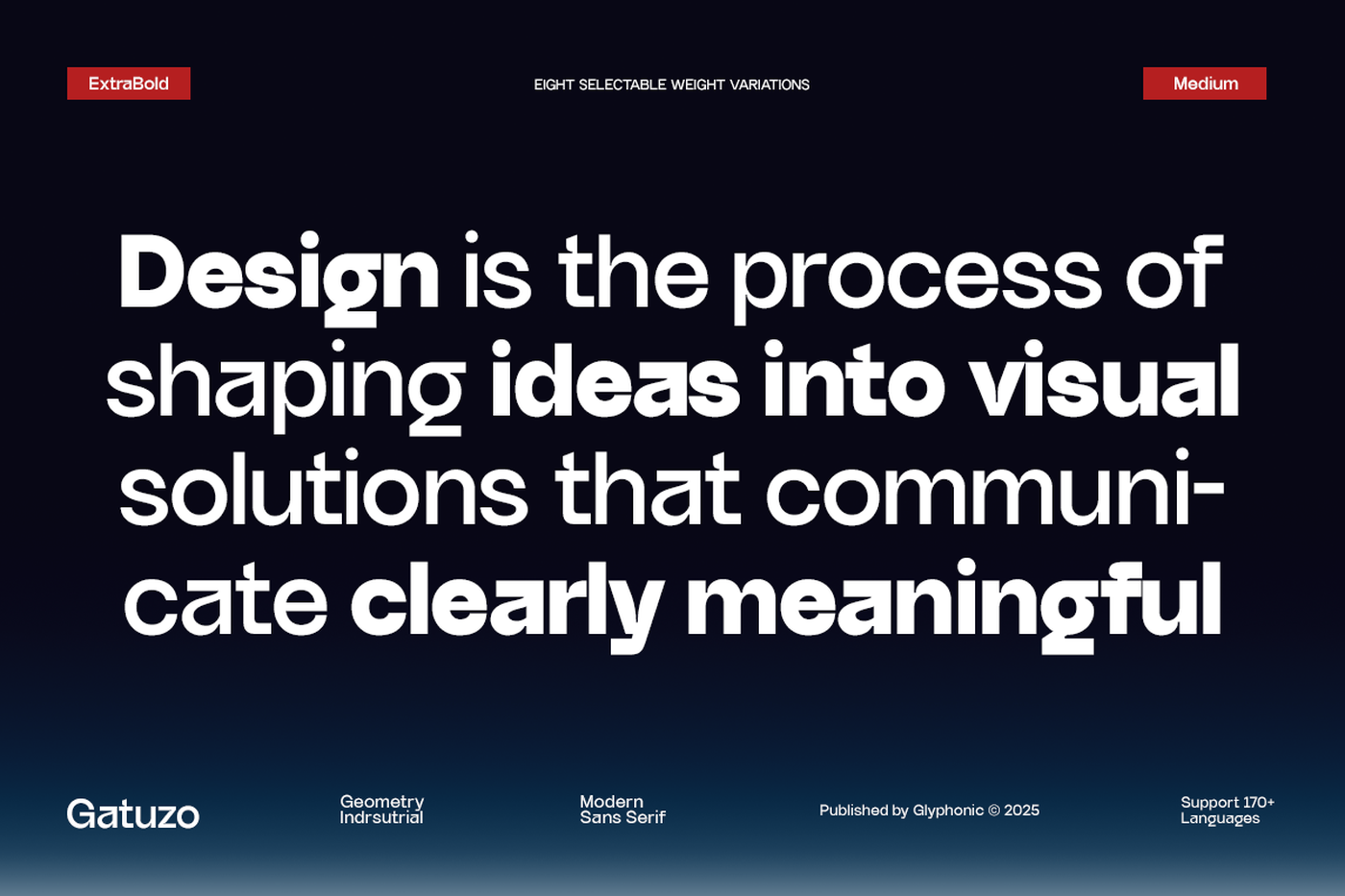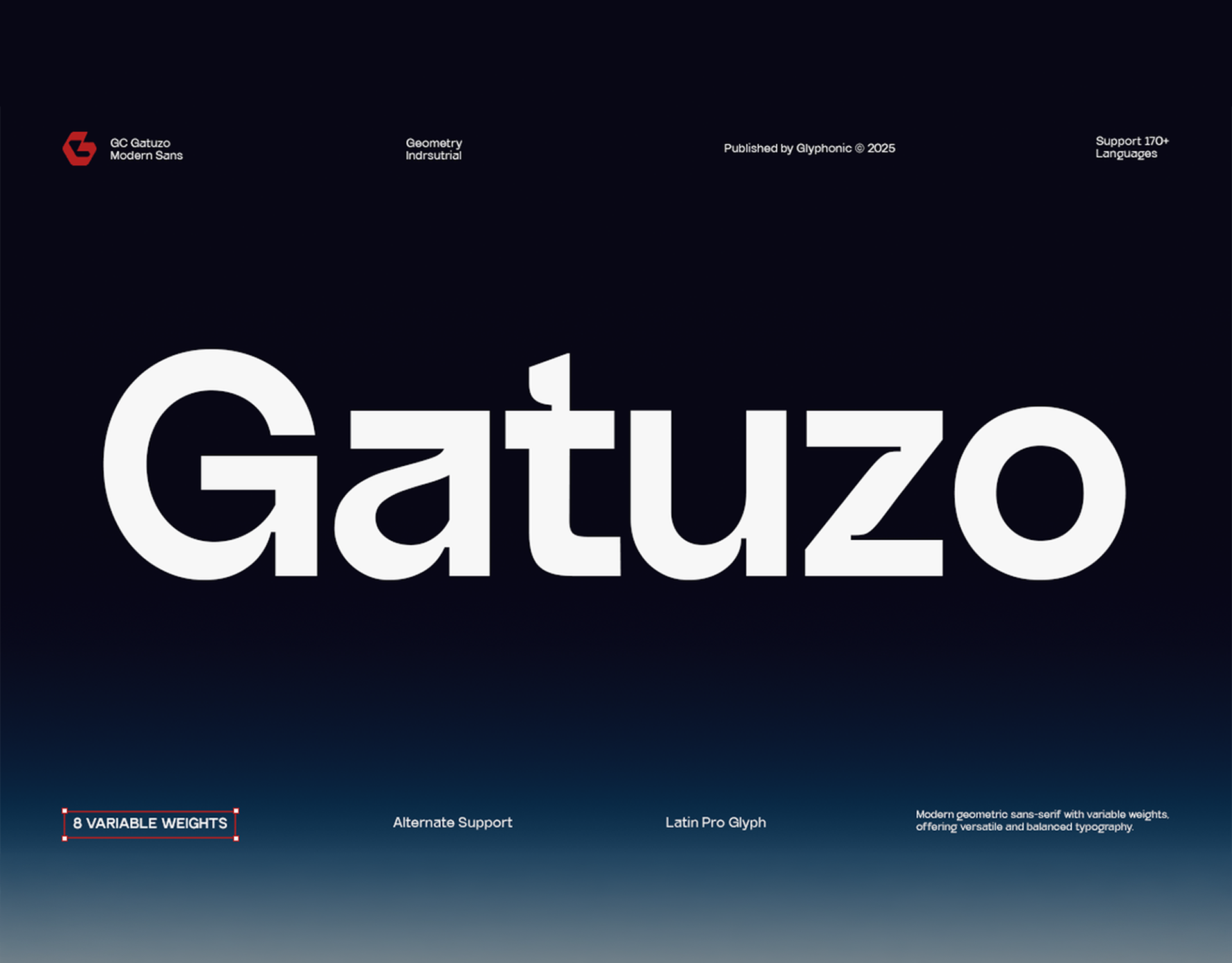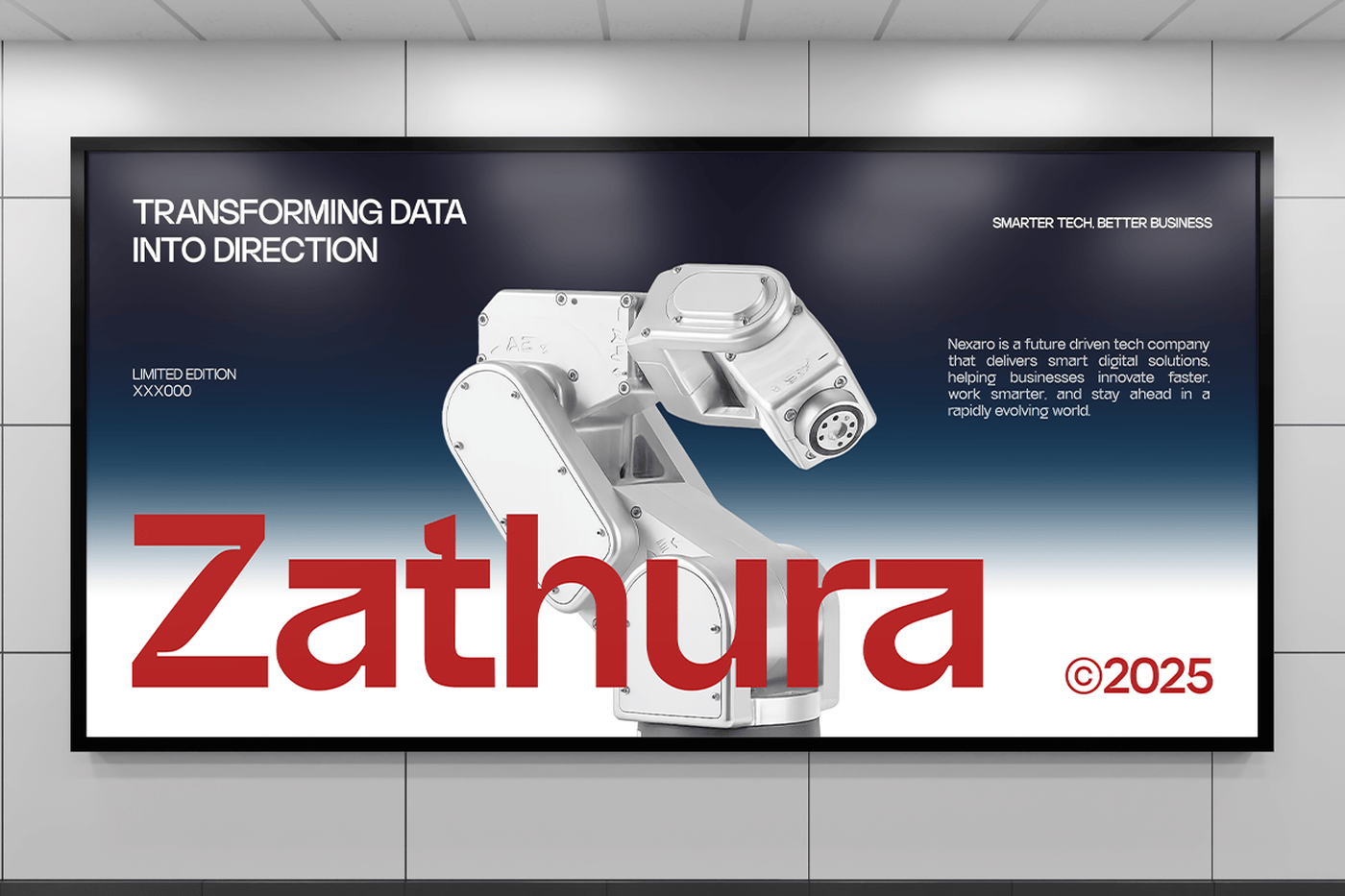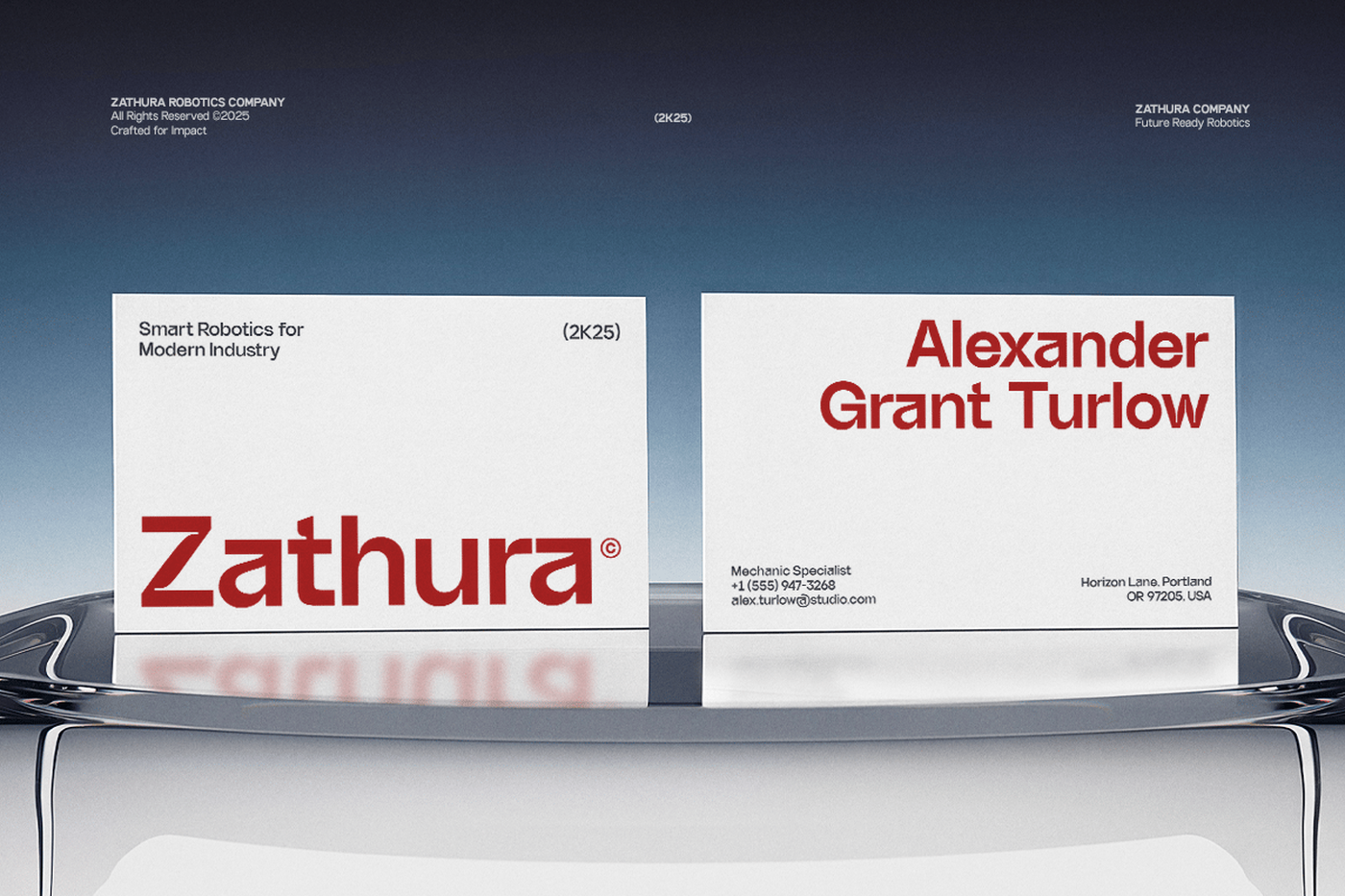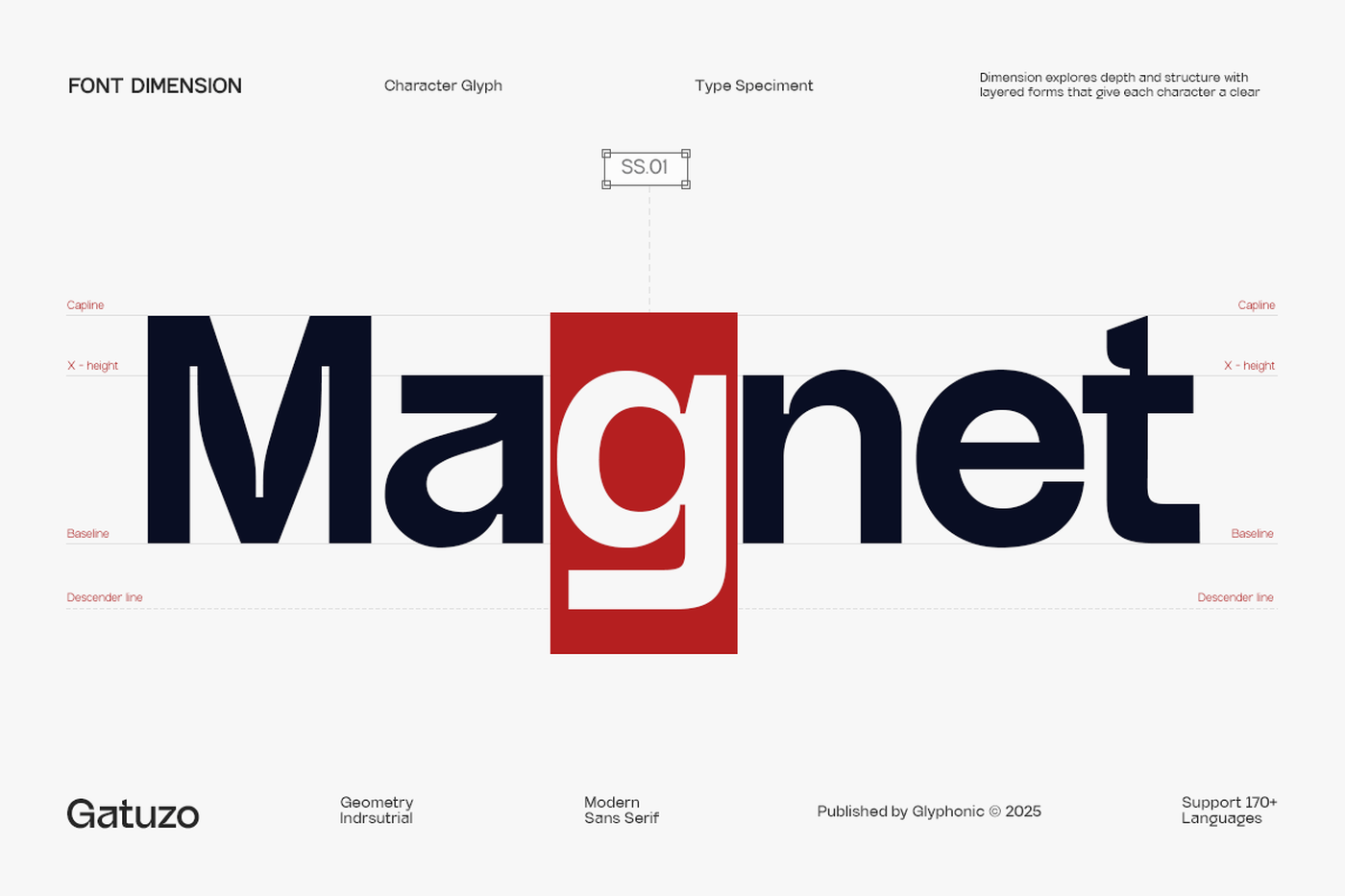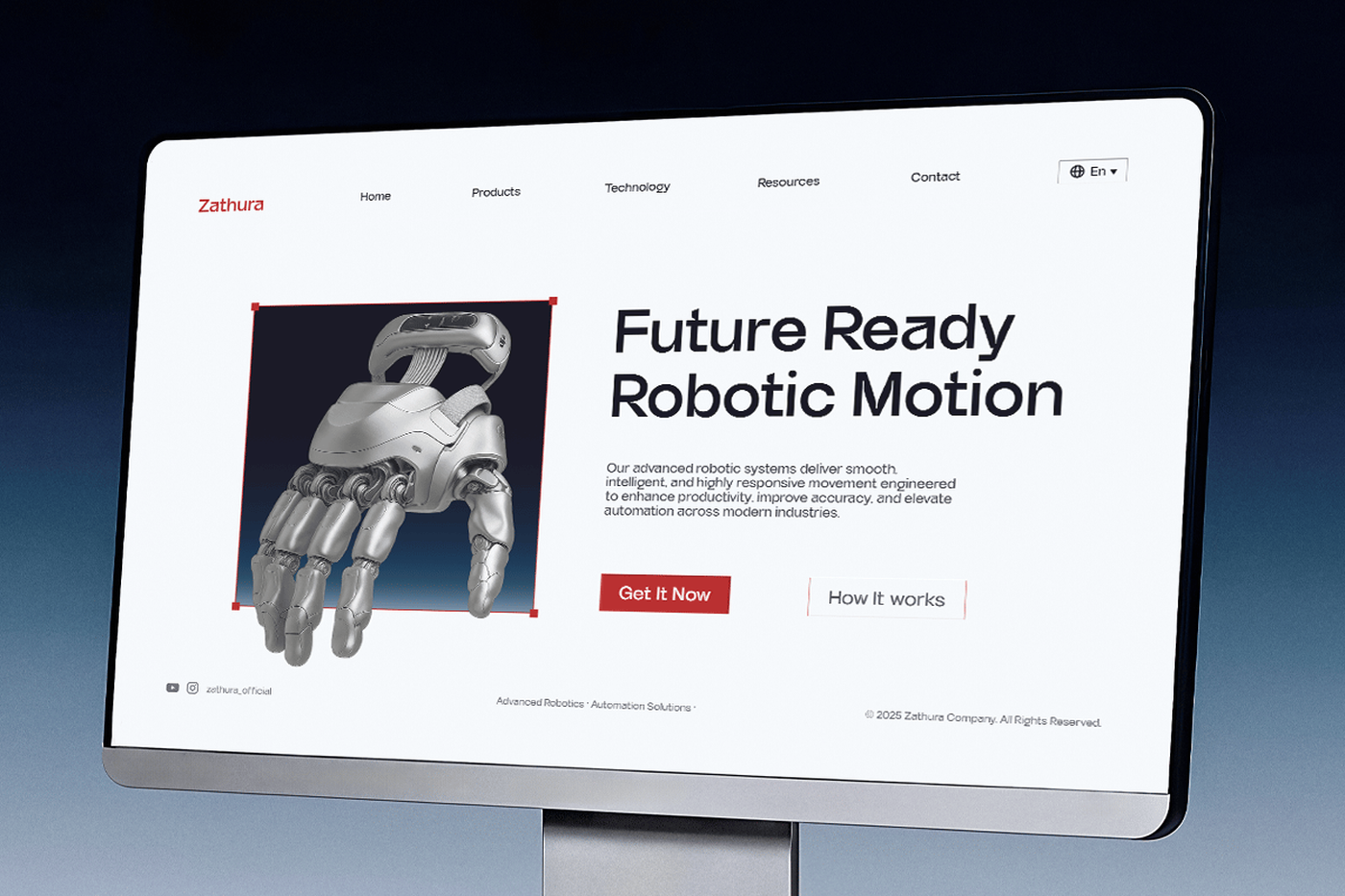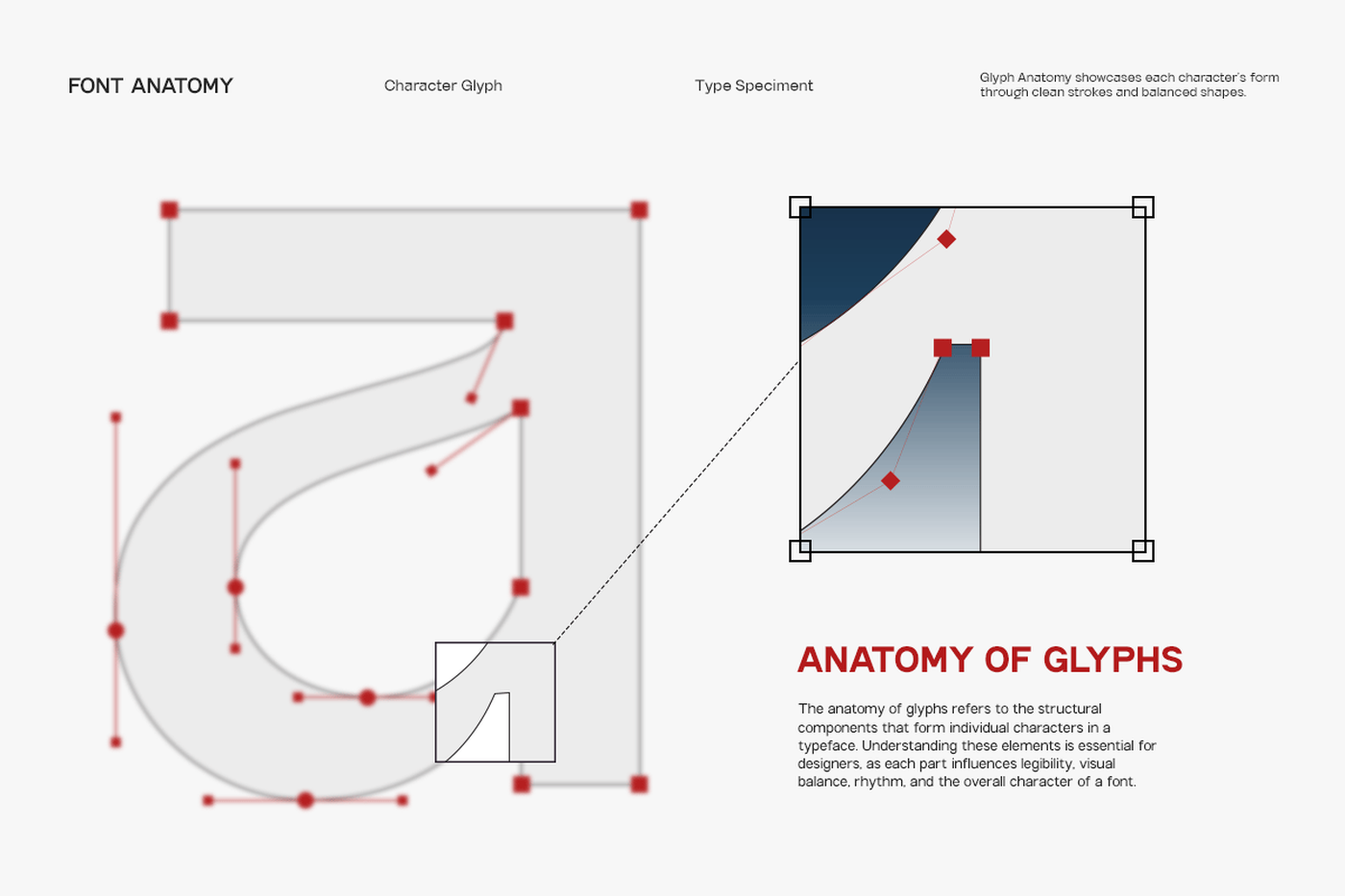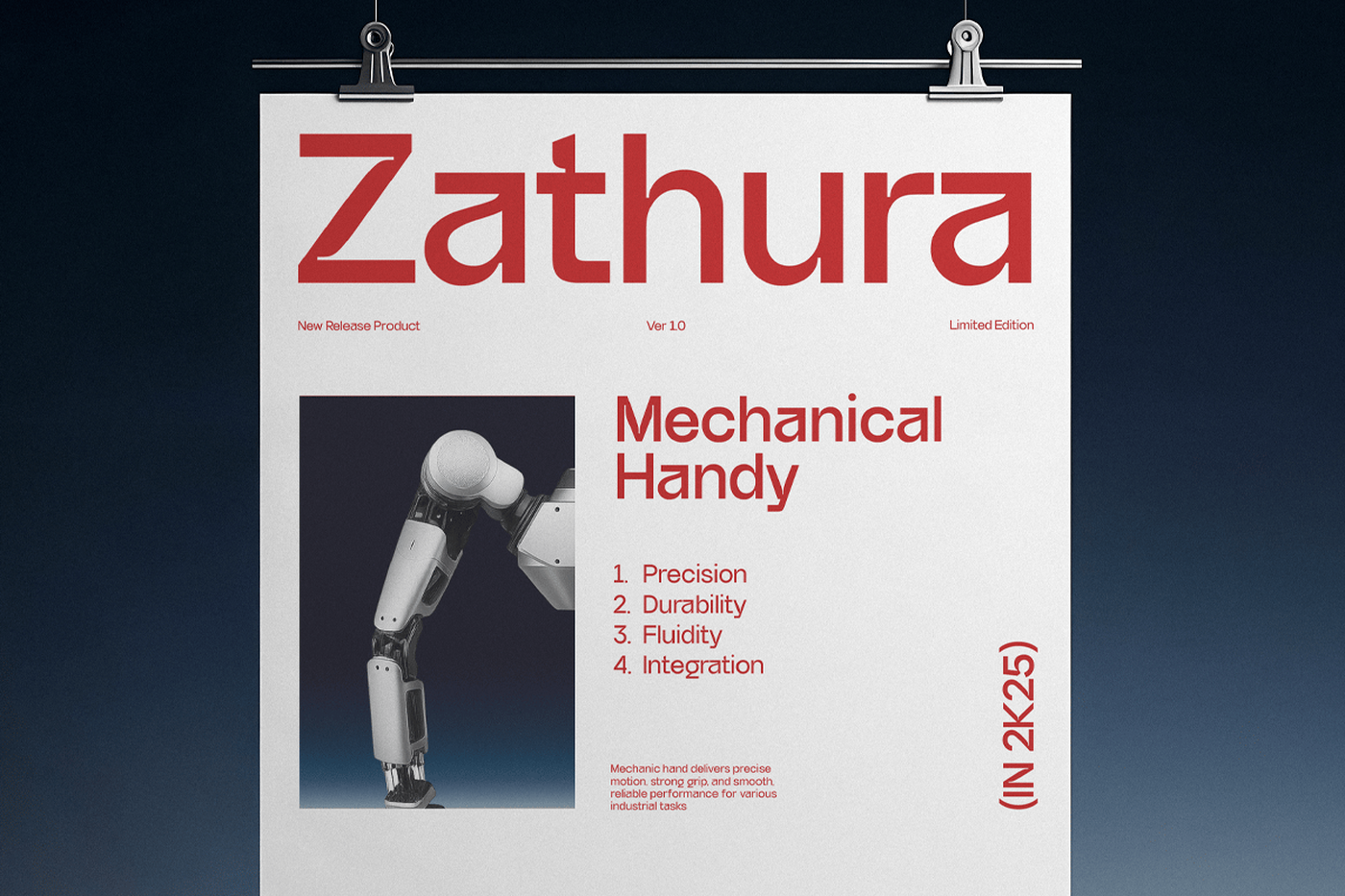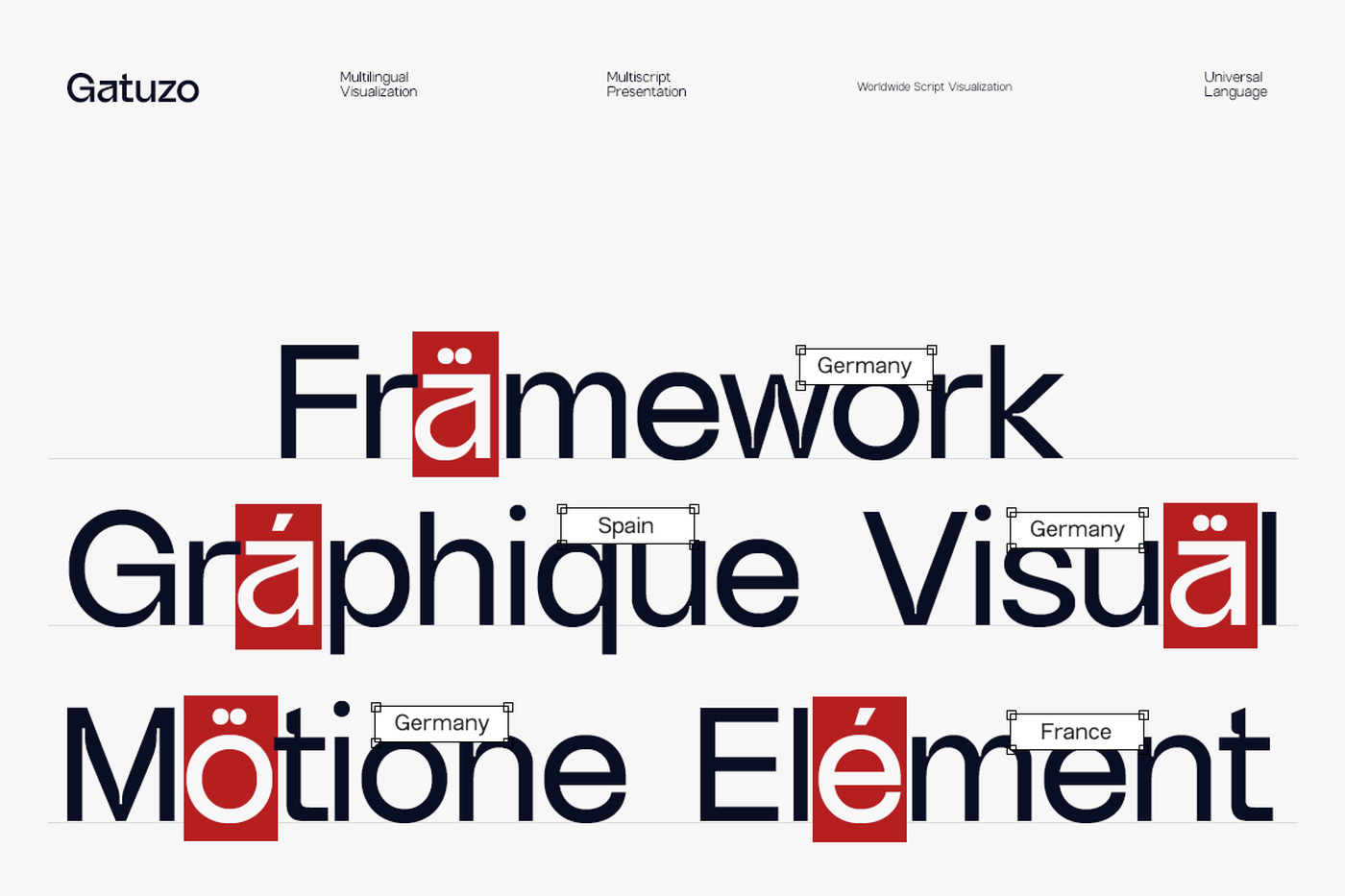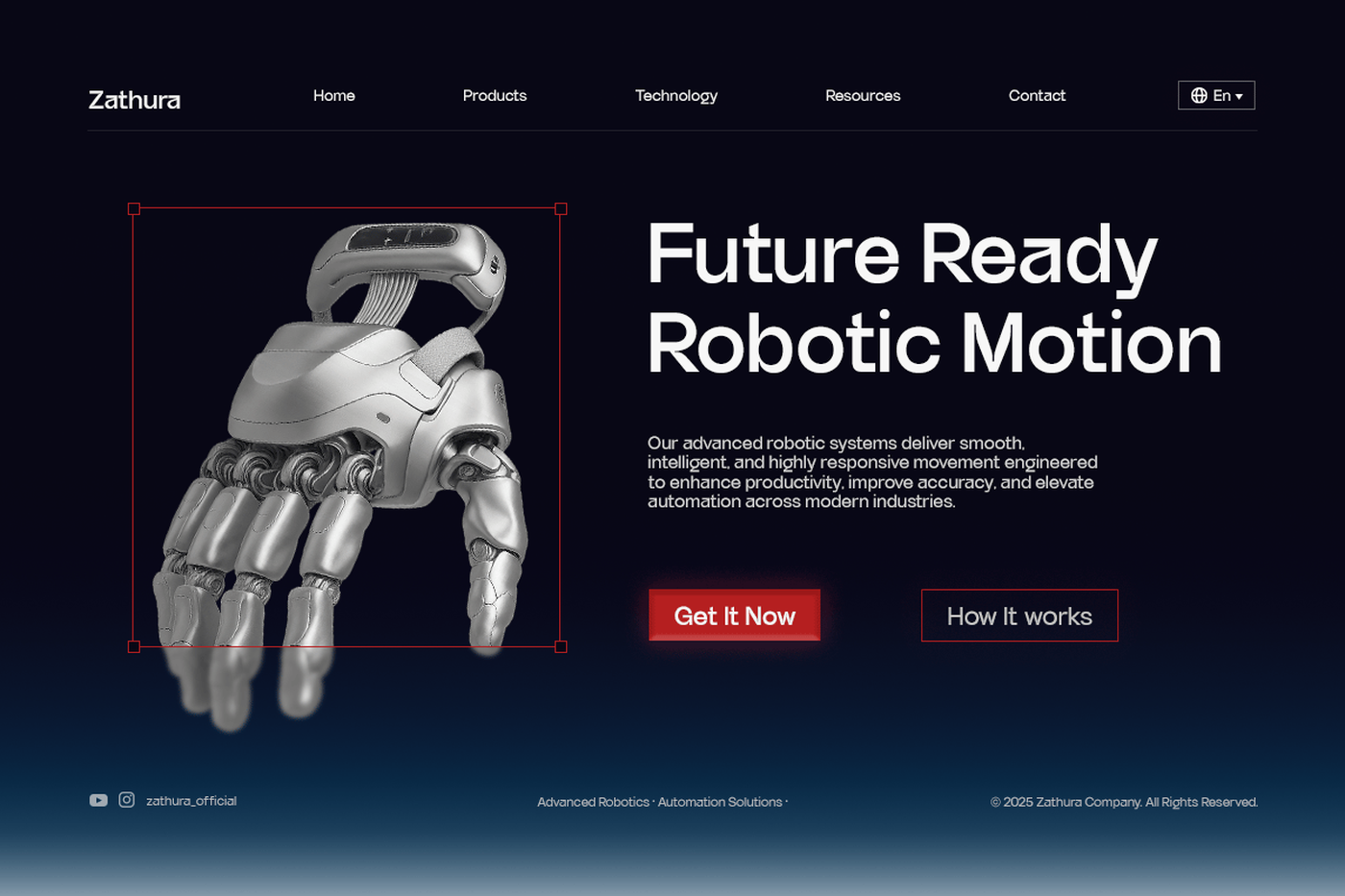
Gatuzo - Geometric Sans Serif Font
Gatuzo is a contemporary sans serif typeface built on strong geometric foundations, designed to deliver clarity, balance, and modern versatility. With clean shapes and confident strokes, it offers a bold yet refined voice that performs seamlessly across both digital and print applications. Crafted to embrace simplicity while maintaining a distinctive character, GC Gatuzo is ideal for branding, editorial layouts, tech-inspired projects, and impactful visual identities. Its well-balanced proportions and precise detailing make the typeface highly adaptable without losing its unique geometric appeal. Whether you’re designing sleek user interfaces, bold headlines, or minimalistic posters, GC Gatuzo brings strength, modernity, and visual clarity to your typography.
Font: Gatuzo